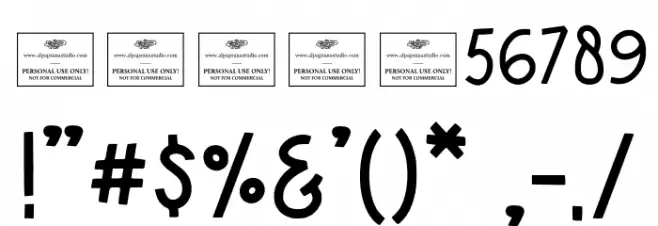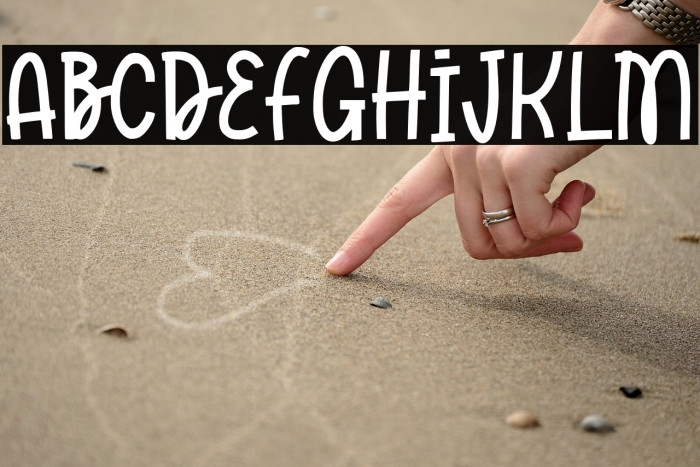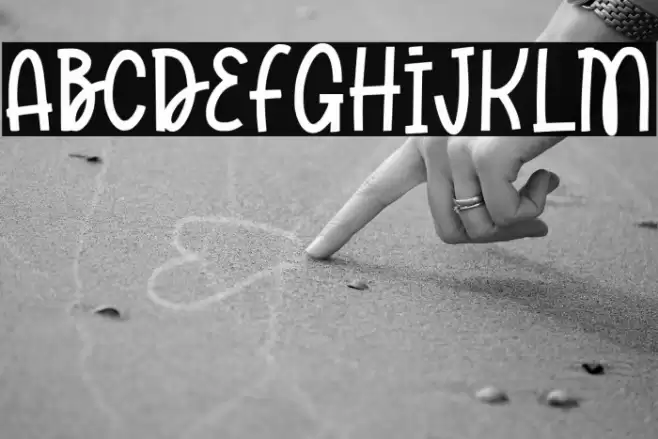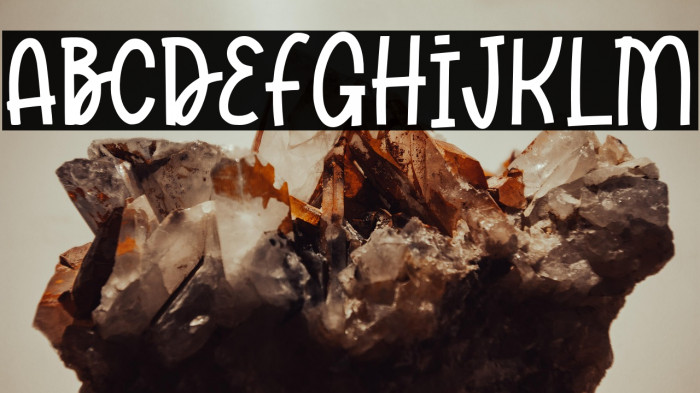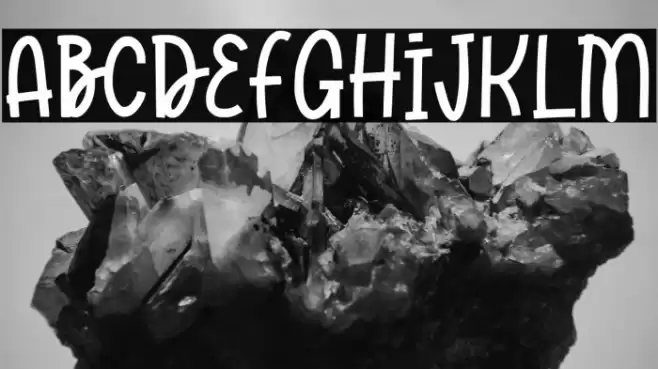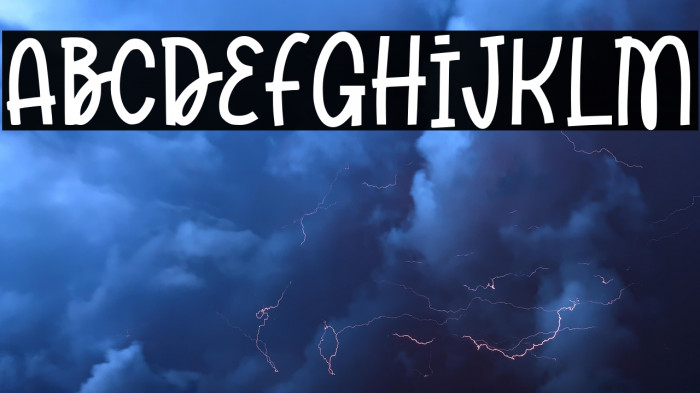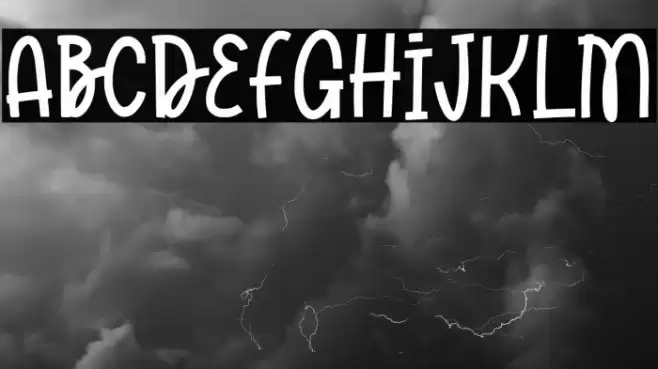
Prolific Font
Prolific Description
This font features a playful and whimsical style with a handwritten appearance. The characters are bold and slightly irregular, giving it a casual and friendly look. The uppercase and lowercase letters maintain a consistent style, with rounded edges and a slight slant, adding to its informal charm. The numbers and special characters follow the same design, ensuring uniformity across all glyphs. This font is ideal for projects that require a personal touch, such as invitations, greeting cards, or playful branding.
Overall StyleCasual, Playful
Use CaseHeadlines, Logos, Informal Text
Proposed ProjectsIdeal for invitations, greeting cards, playful branding, and casual design projects.